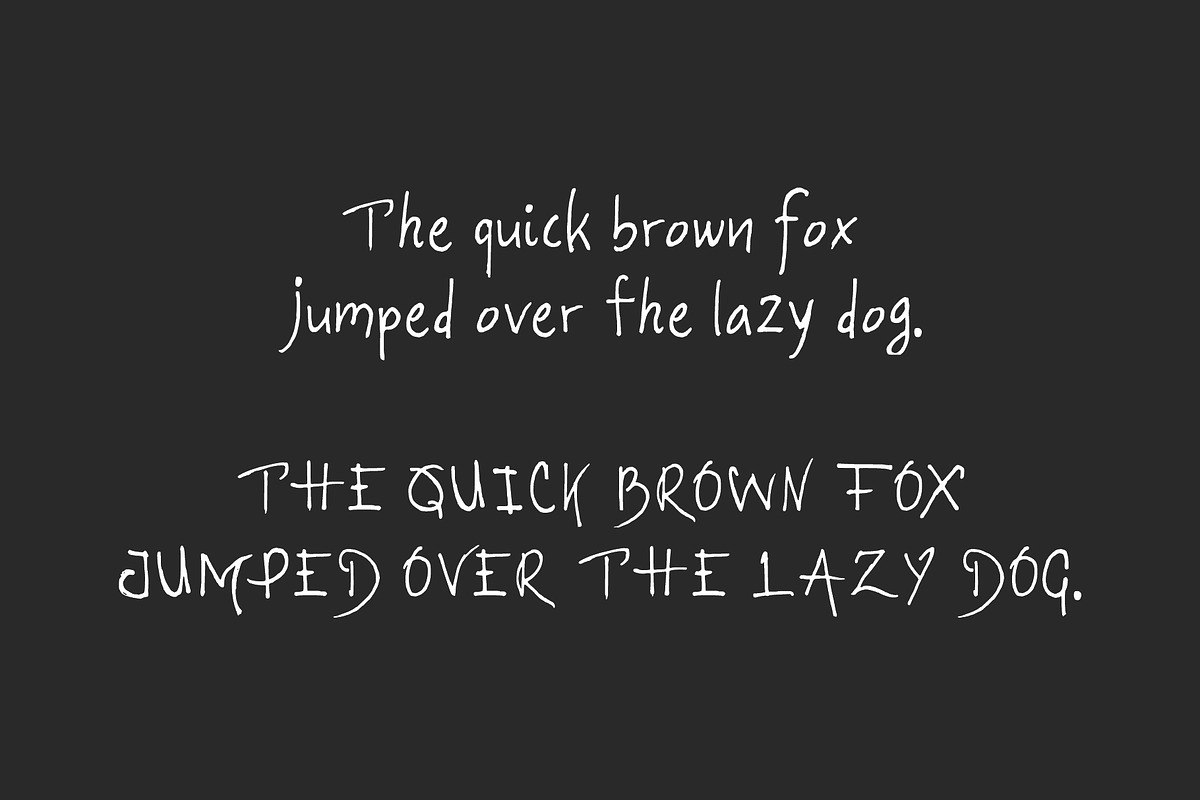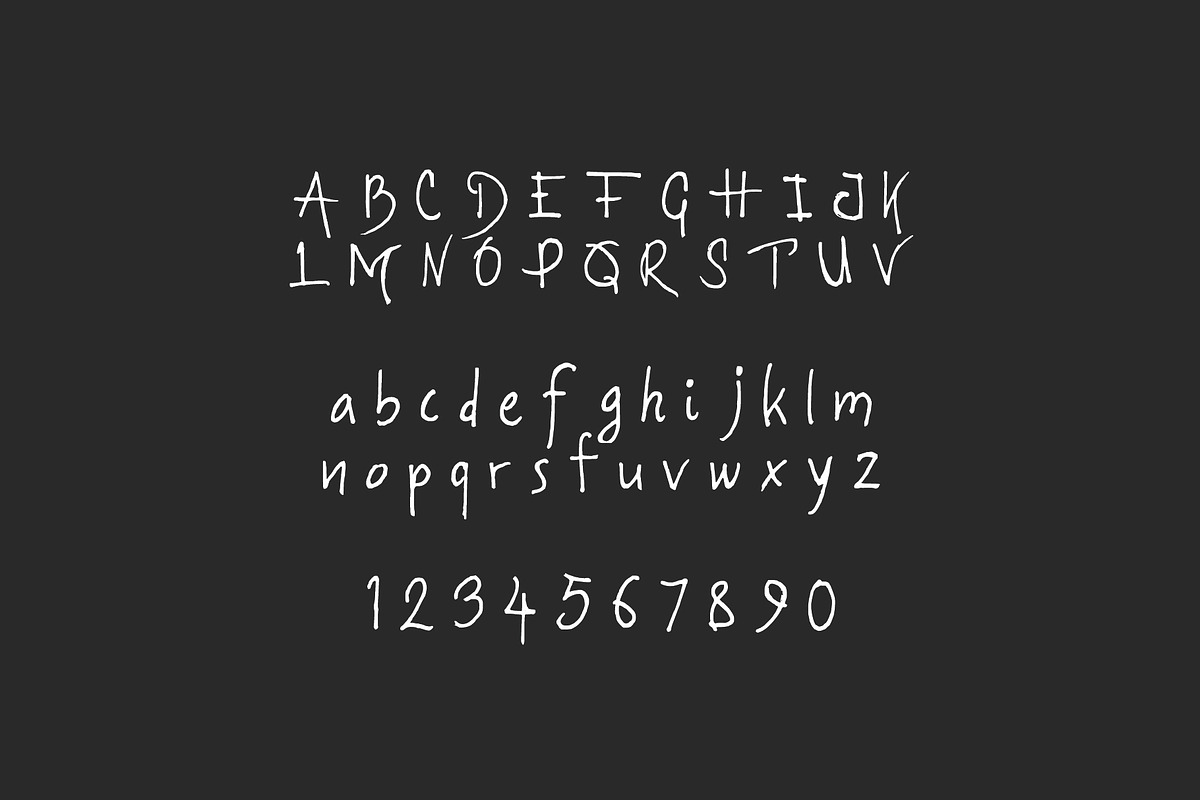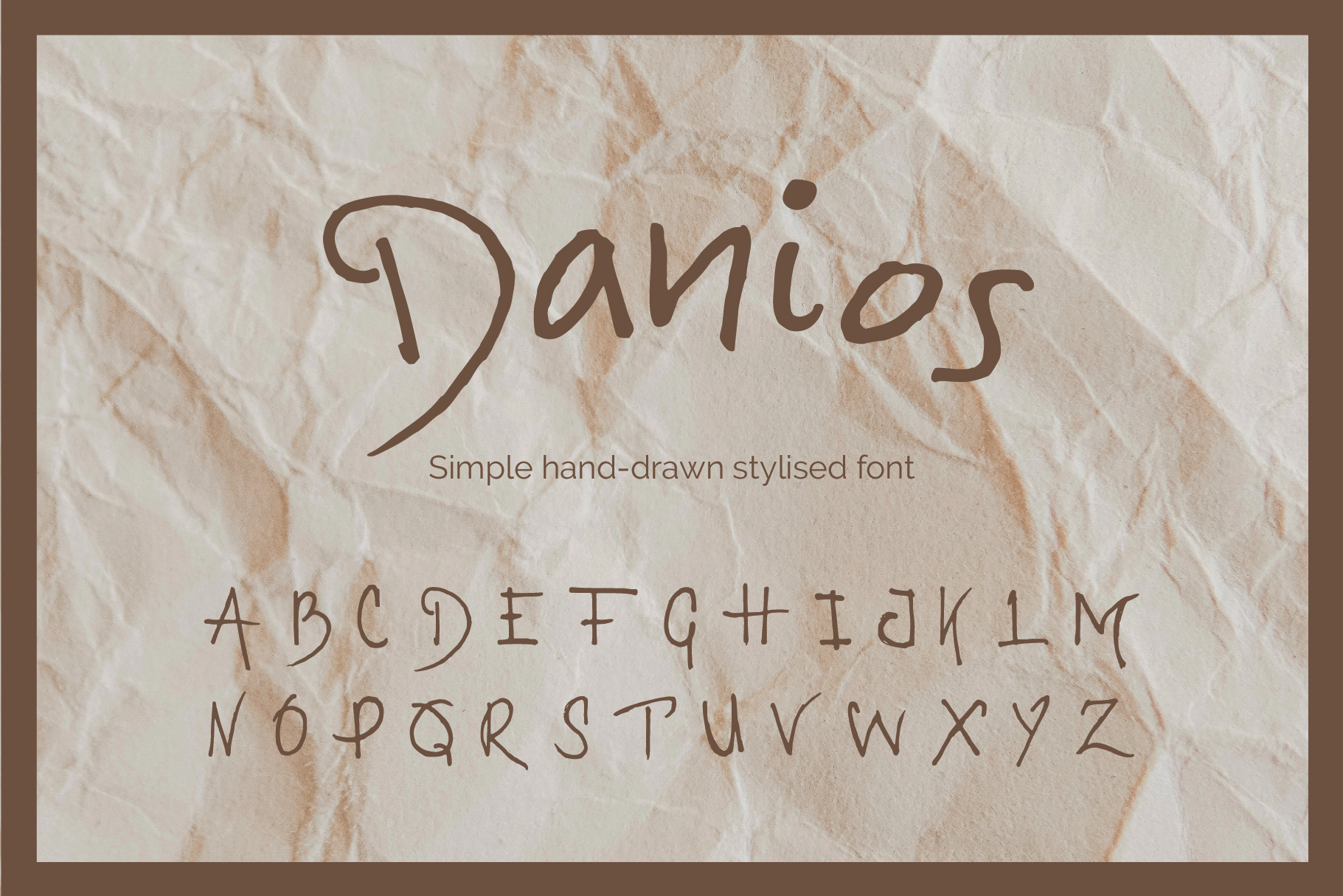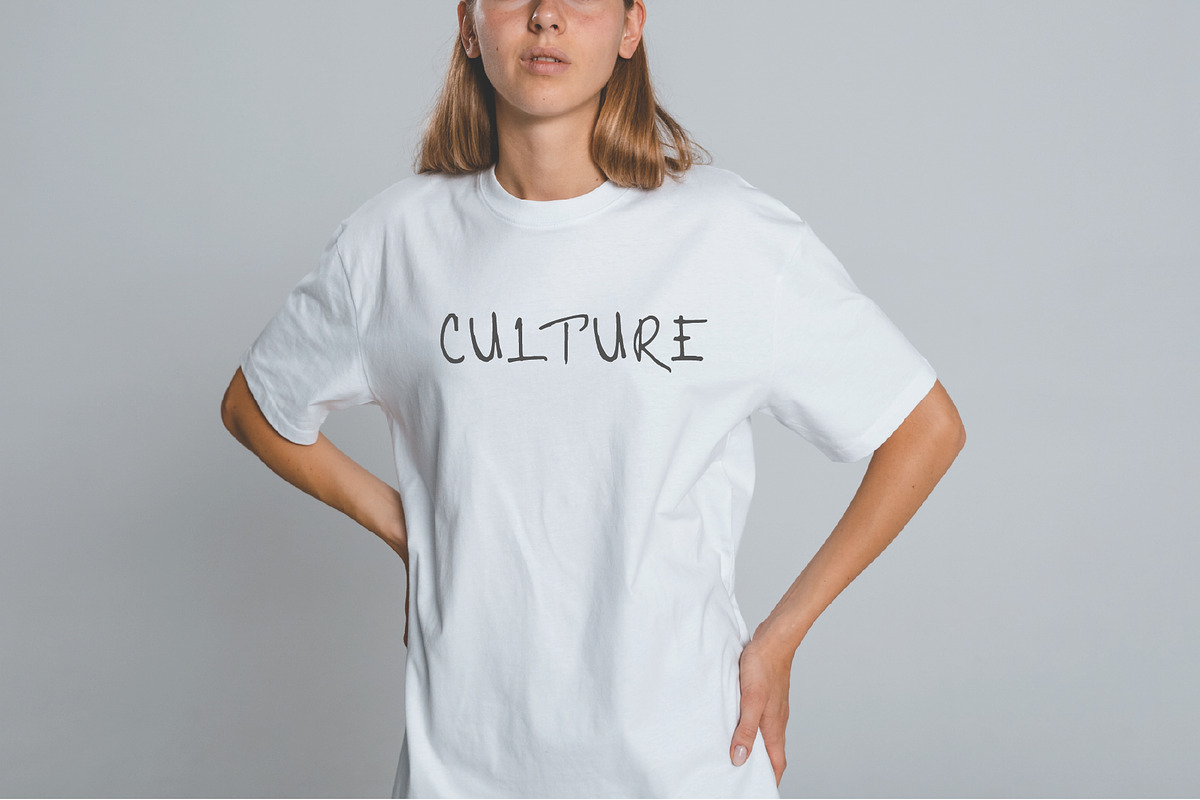
Danios a simple handdrawn font
Danios a hand drawn font!
You can use on-top of textures, inspirational quotes, for photos, personal designs.
Please note: This font includes upper, lower case and numbers.